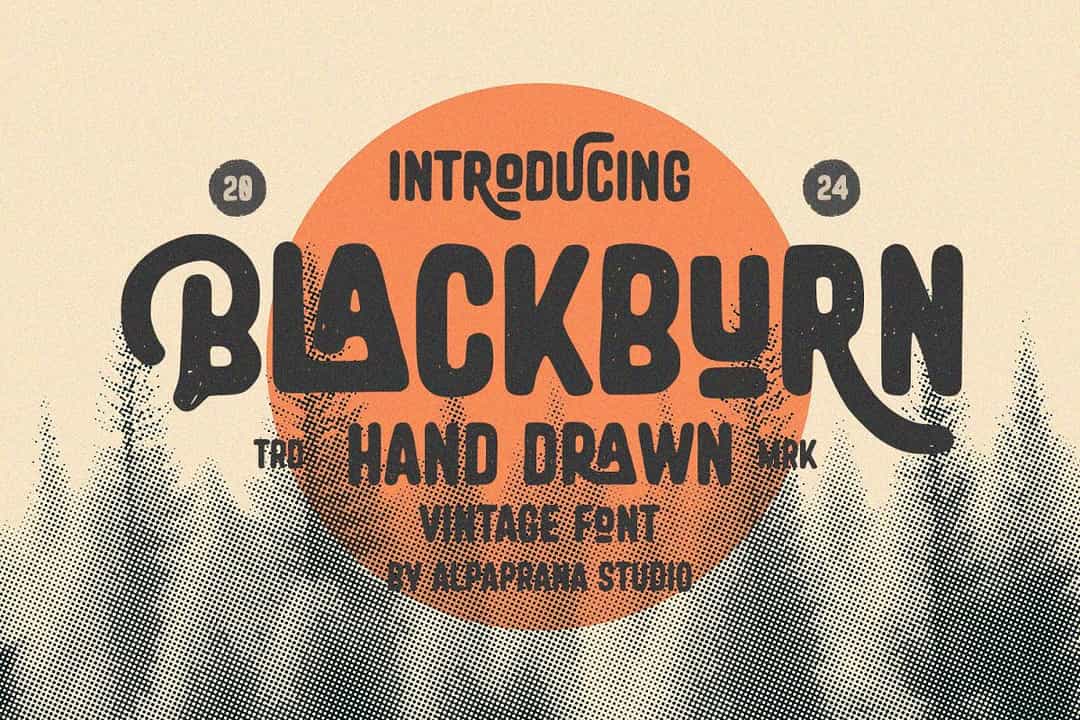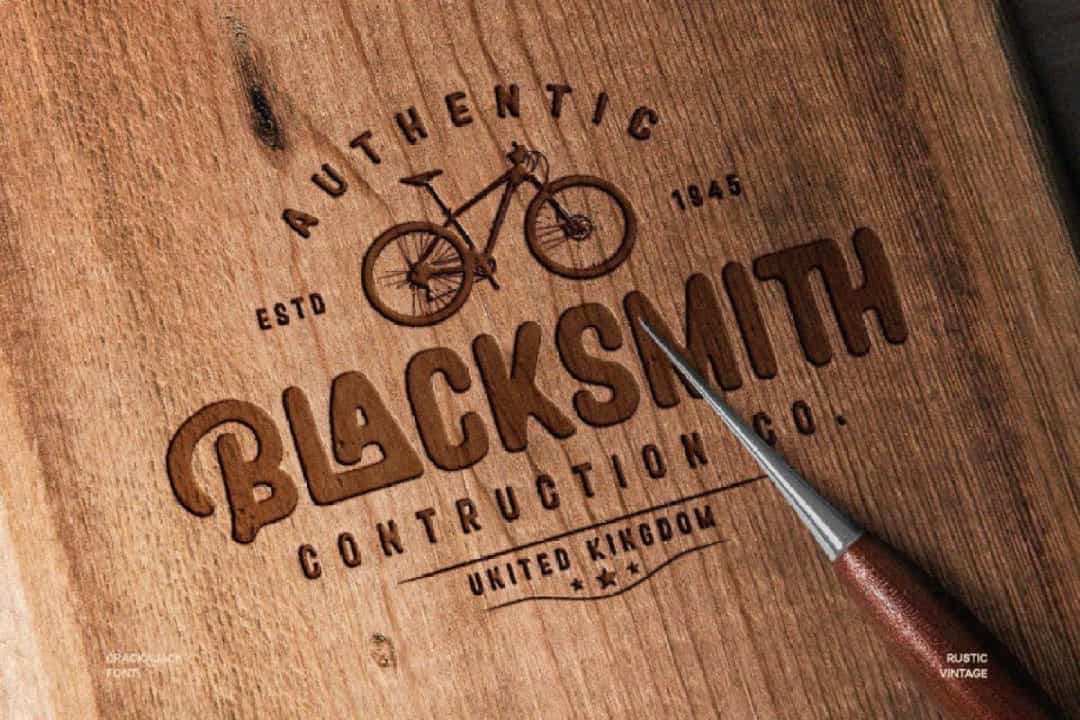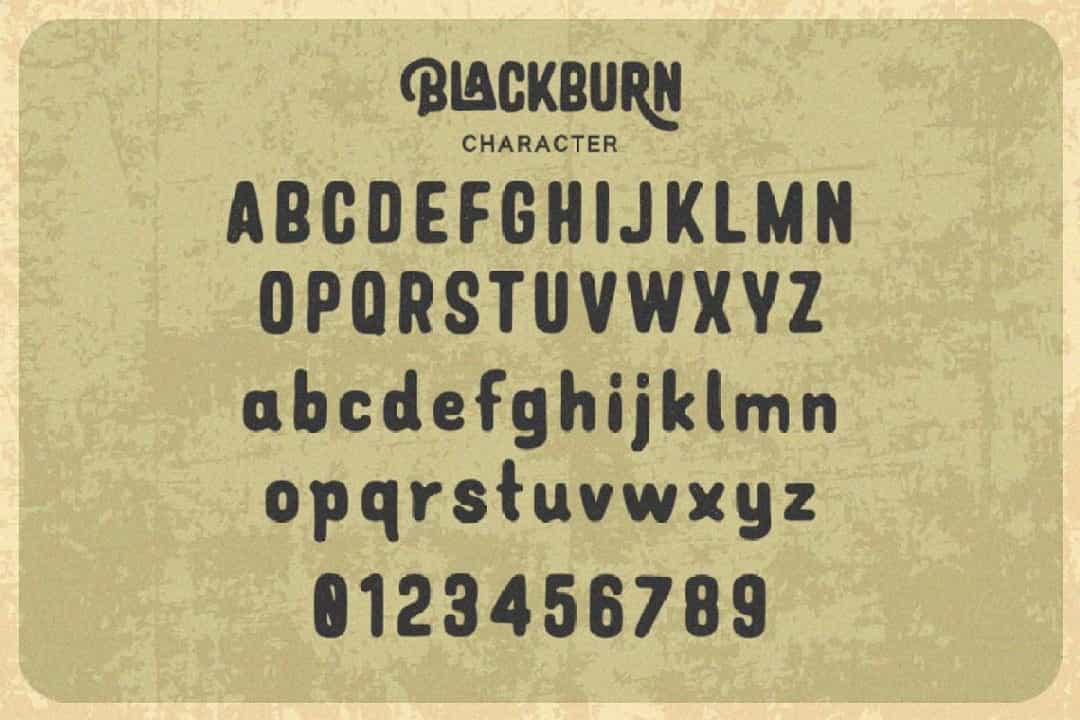
Blackburn is an old-fashioned rustic sans-serif typeface which perfectly captures vintage style. Its bold letterforms and worn edges exude an aged charm which can be employed to create branding, logo design and other applications.